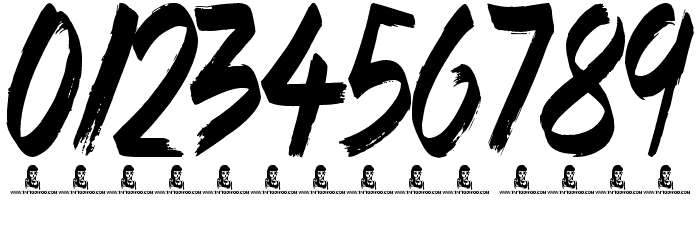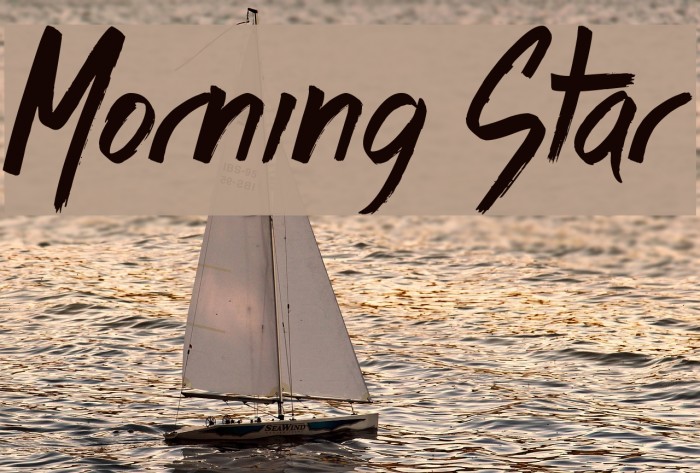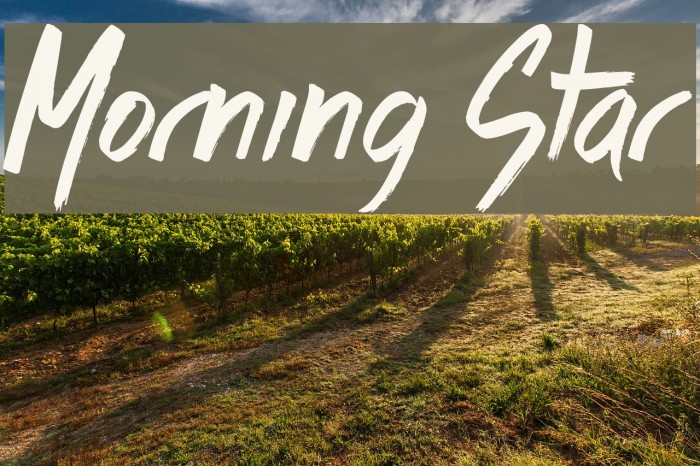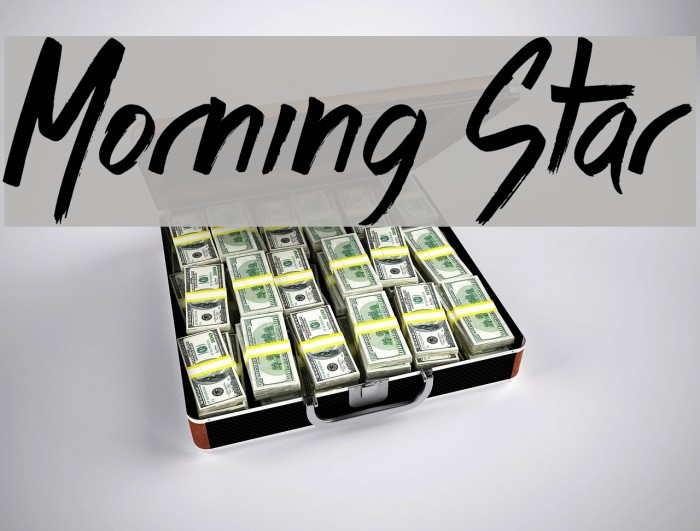
Morning Star Font
This font features a bold and expressive handwritten style, characterized by its dynamic brush strokes and energetic appearance. The letters are slightly slanted, giving a sense of motion and fluidity. The uppercase and lowercase letters maintain a consistent style, with some variation in stroke thickness that adds to the font's lively and artistic feel. The numbers and special characters follow the same design principles, ensuring a cohesive look across all glyphs. This font's unique style makes it stand out, perfect for projects that require a personal touch.
A bold, expressive handwritten font with dynamic brush strokes.
- Proposed Projects: Ideal for branding, posters, invitations, and any project that benefits from a personal, artistic touch.